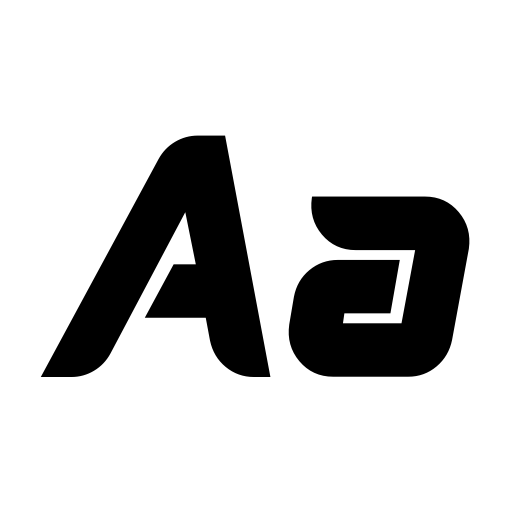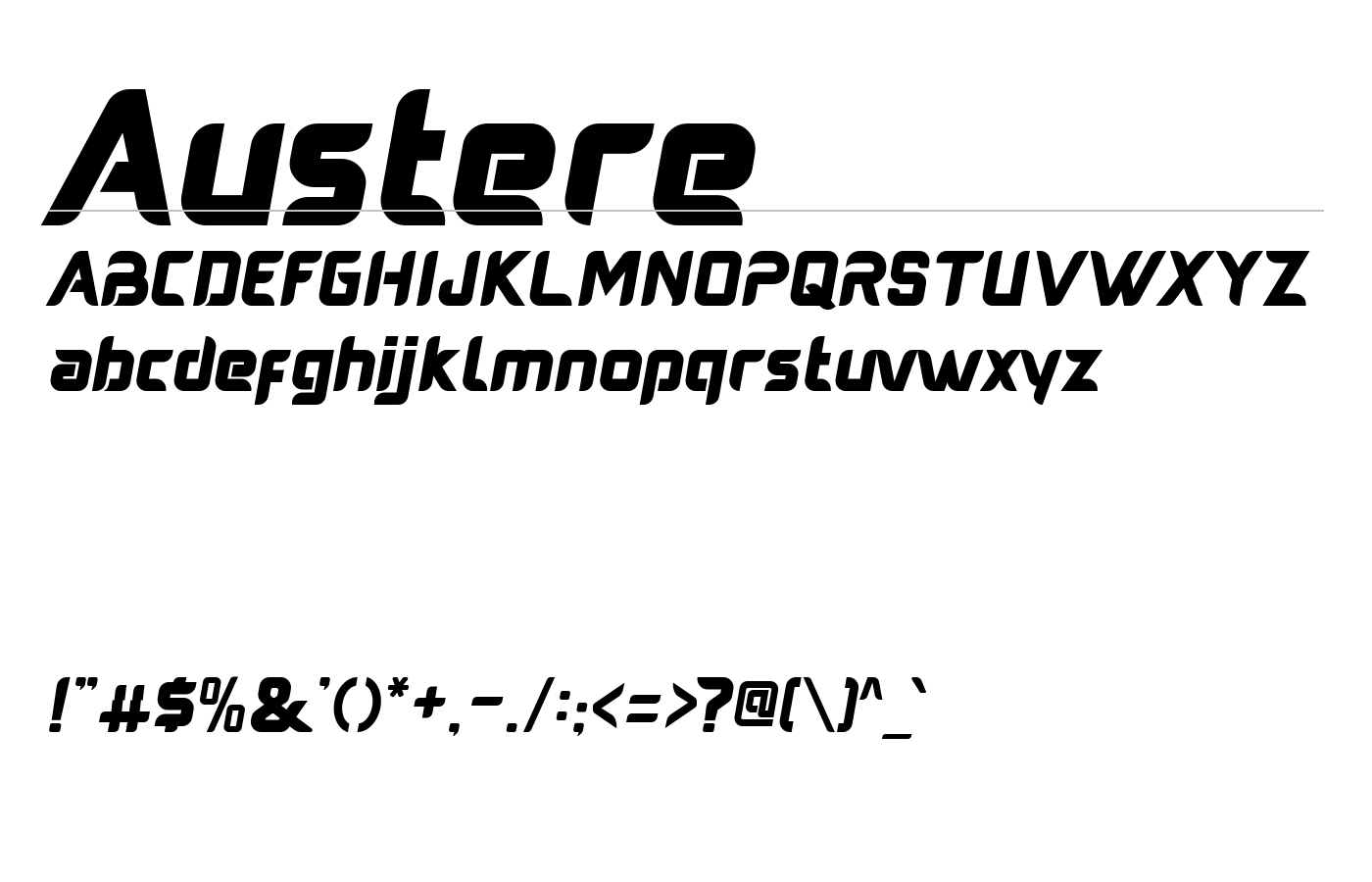
Austere is a bold, condensed sans serif font with a dynamic, angled design that gives it a modern and sporty feel. Its strong, geometric letterforms with subtle curves and a slightly italic slant convey energy and forward motion, making it ideal for striking headlines, logos, and branding in active or tech-focused industries. This font excels in contexts where a confident, contemporary style is needed to grab attention and communicate strength.
Austere Font
About Austere Font
| Font family | Austere Font |
| Designer | Nurf Designs |